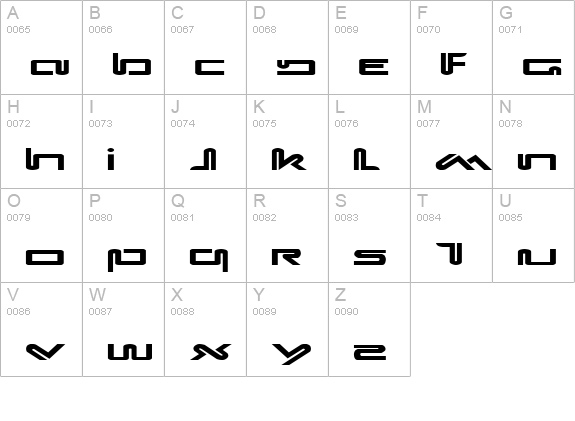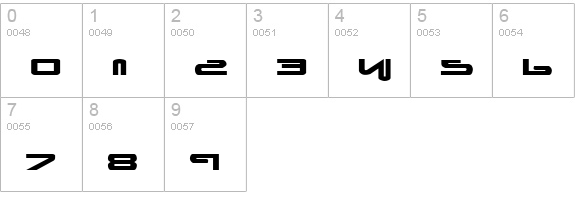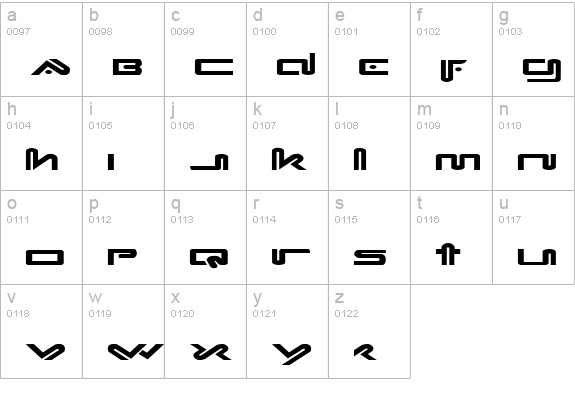
Xephyr Expanded is a distinctive, extended-width variant in the Xephyr typeface family \xE2\x80\x94 well suited to design and typography projects.
Xephyr Expanded font is a modern and stylish typeface that exudes elegance and sophistication. With its sleek and elongated design, this font is perfect for adding a touch of class to any project. The Xephyr Expanded font is versatile and can be used for a wide range of design purposes, from logos and branding to headlines and posters. One of the best things about Xephyr Expanded font is that it is completely free to download. You can easily get your hands on this stunning font by visiting FontsMarket.com, where it is available for instant download. Whether you're a professional designer looking for a new font to add to your collection or a hobbyist looking to spice up your projects, Xephyr Expanded font is the perfect choice. Download it today and let your creativity soar!